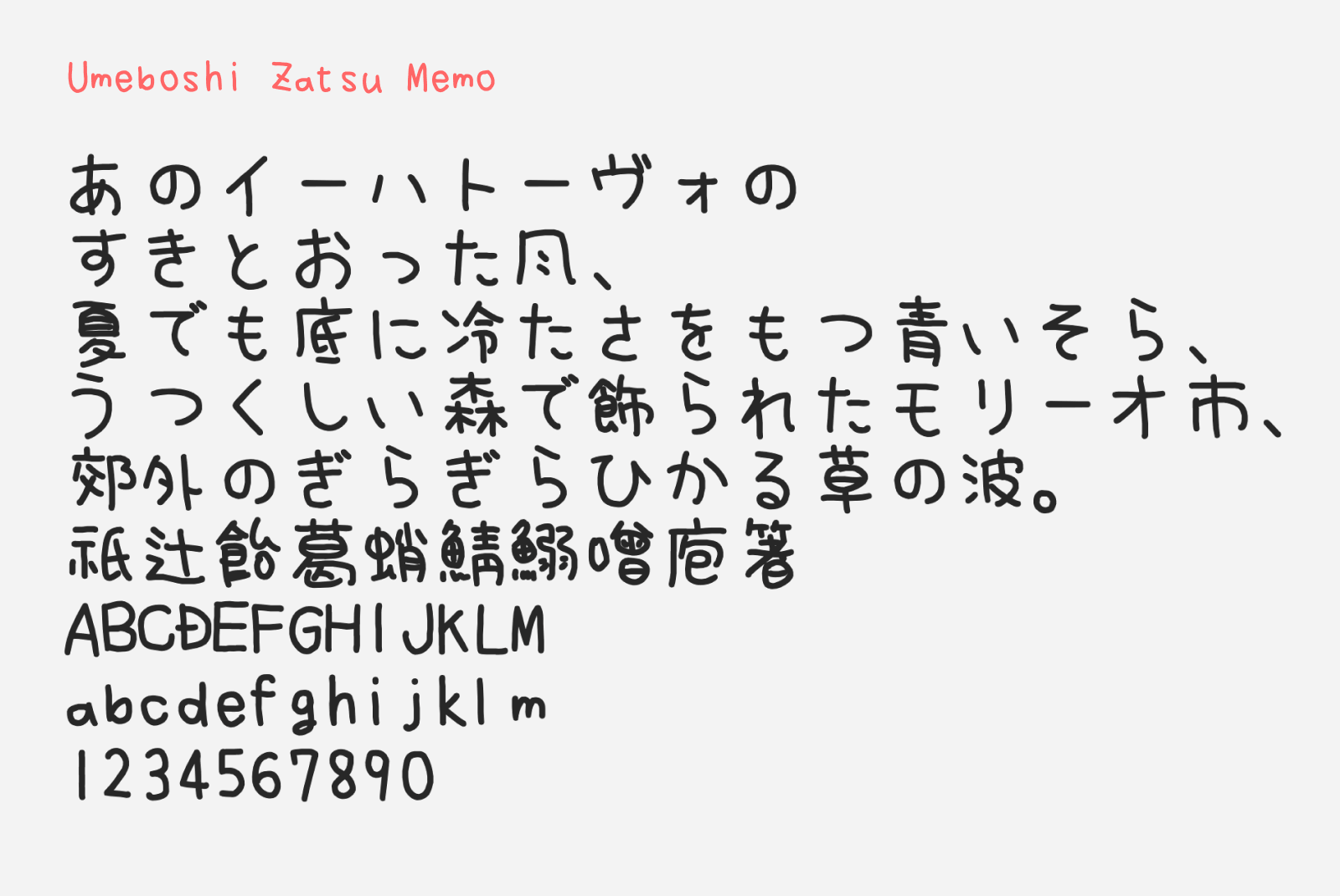
Umeboshi Zatsu Memo
Umeboshi Zatsu Memo (梅干雑メモフォント) is another free Japanese handwriting font from toga, the same creator behind Umeboshi Natural and Umeboshi Font. What sets this apart from Umeboshi Natural is that this one takes a softer, rounder approach. The name gives it away: “zatsu” (雑) means rough or casual, and “memo” (メモ) means notes, so the image it’s going for is something scribbled in a notepad without much fuss — quick, rounded strokes, a little quirky, but warm and legible.
Umeboshi Zatsu Memo covers pretty much the same as its sibling fonts: hiragana, katakana, half-width katakana, alphanumerics, major symbols, and kanji up to JIS Level 3. Vertical writing is supported as well. It’s free for download and be used on commercial projects, and no credit is required.
- Hiragana and Katakana
- Kanji (JIS Level 1, 2, 3)
- Alphanumerics
- Latin, Cyrillic and Greek scripts
- Symbols and Punctuations